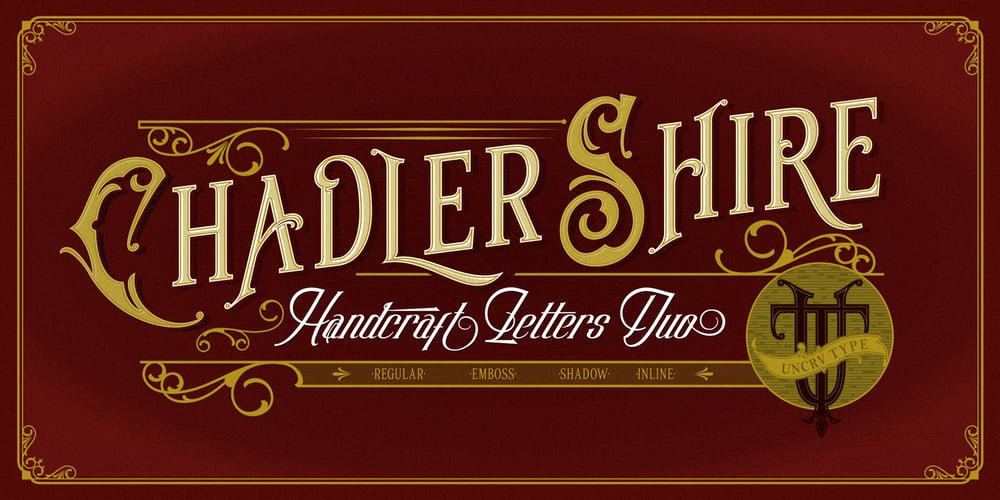
Chadlershire Font Family was designed by Ferry Septian and published by Uncurve. Chadlershire contains 10 styles and family package options. Chadlershire is font duo a perfectly blended type for any art work. Comes with emboss, inline and shadow layering styles, including alternates and some extra ornaments. Chadlershire is inspired by typografic design, sign painters, lettering, vintage art, tattoo art, and ephemera label. Perfect for labels, posters, branding, logotypes, headers, titles, packaging, display, and more.